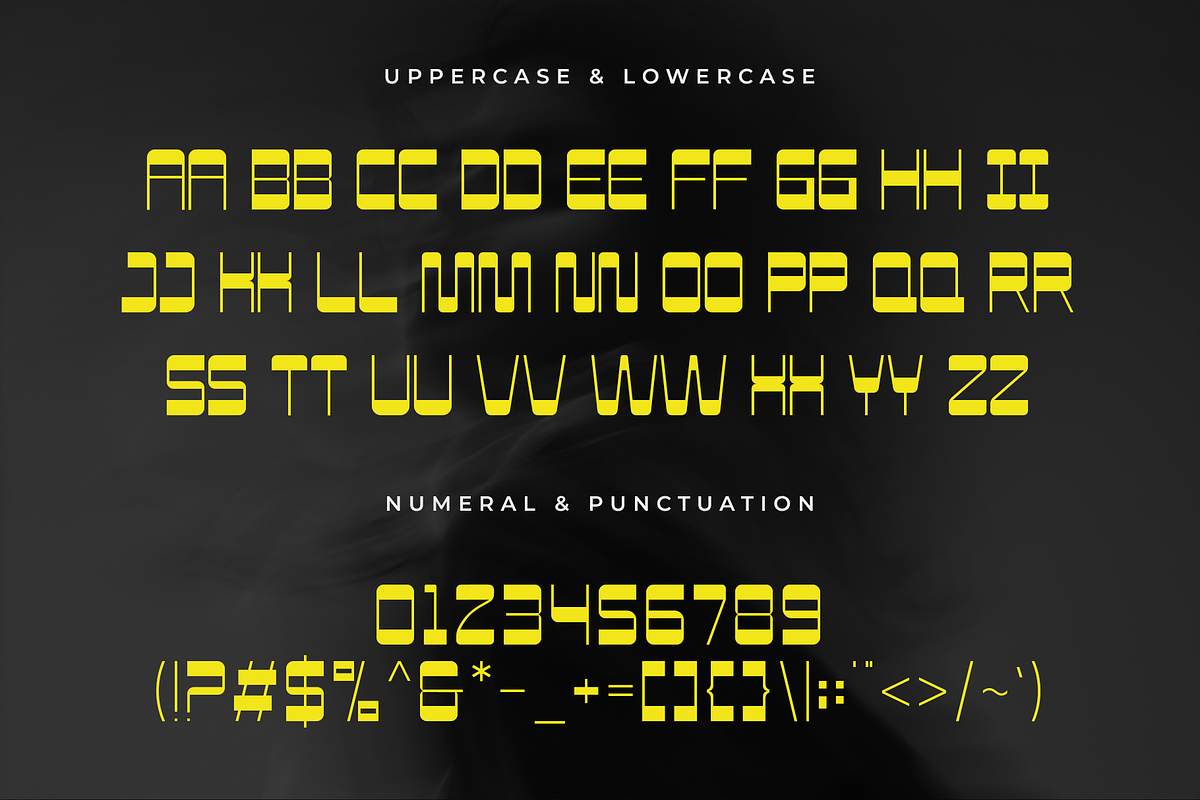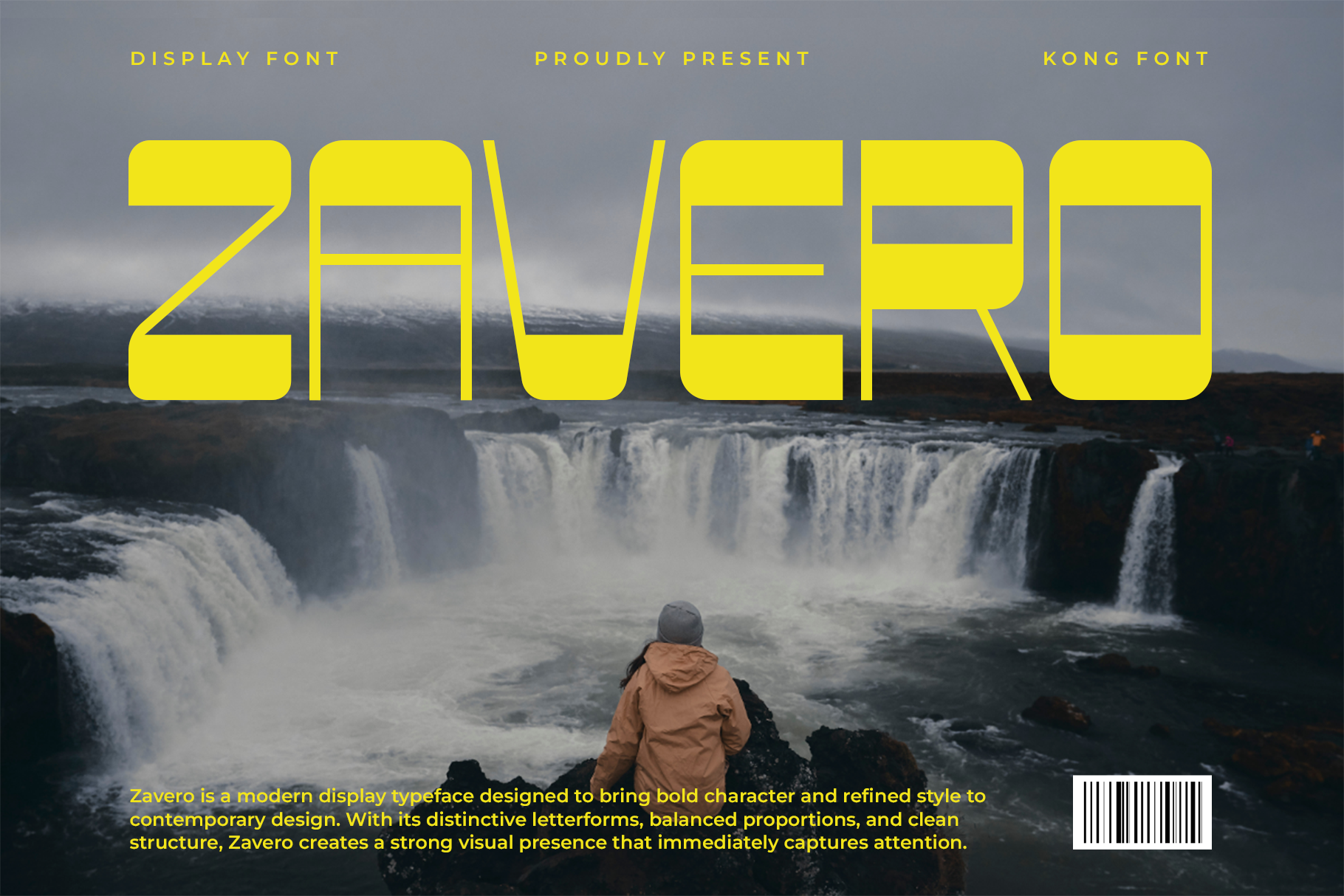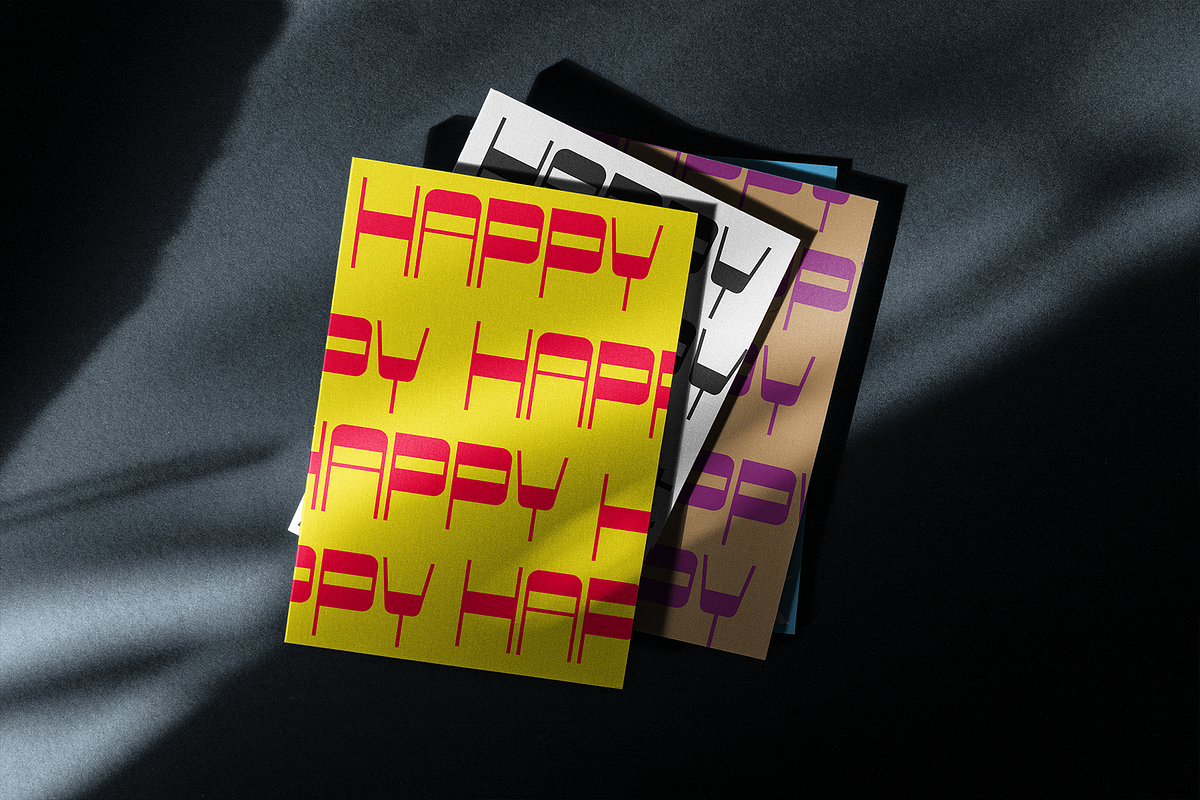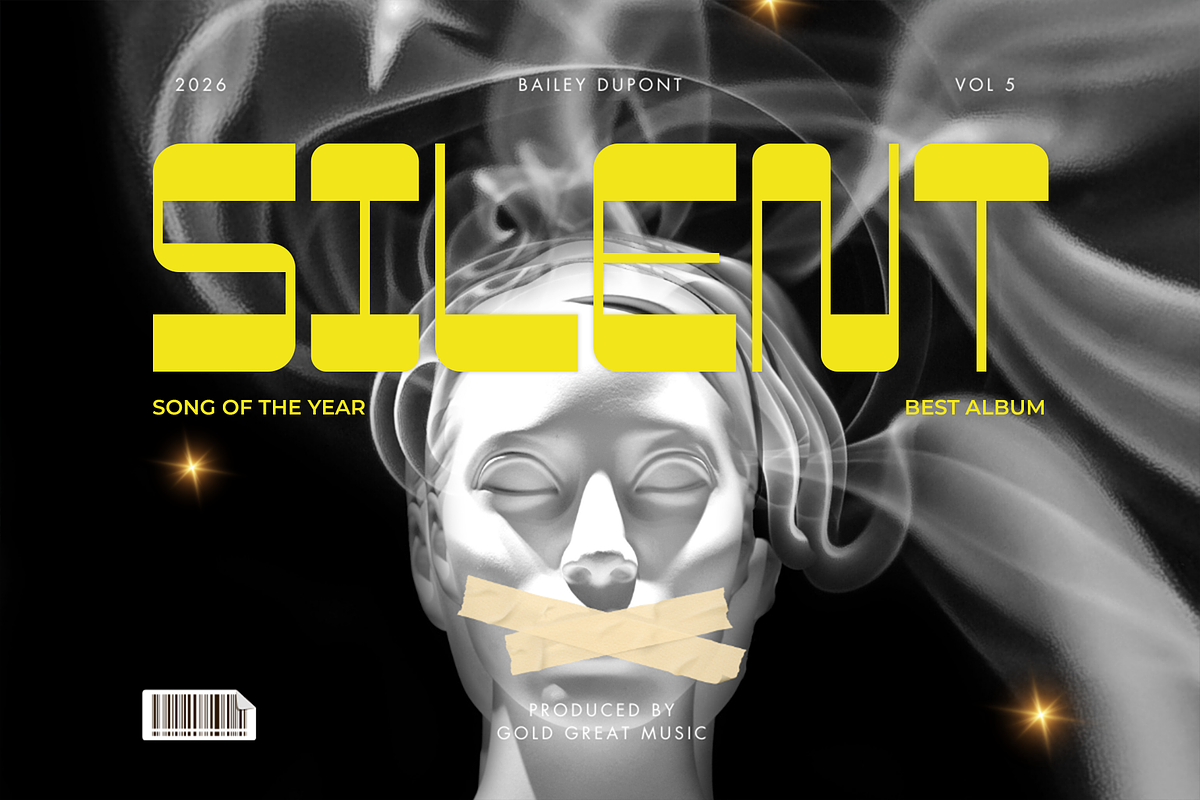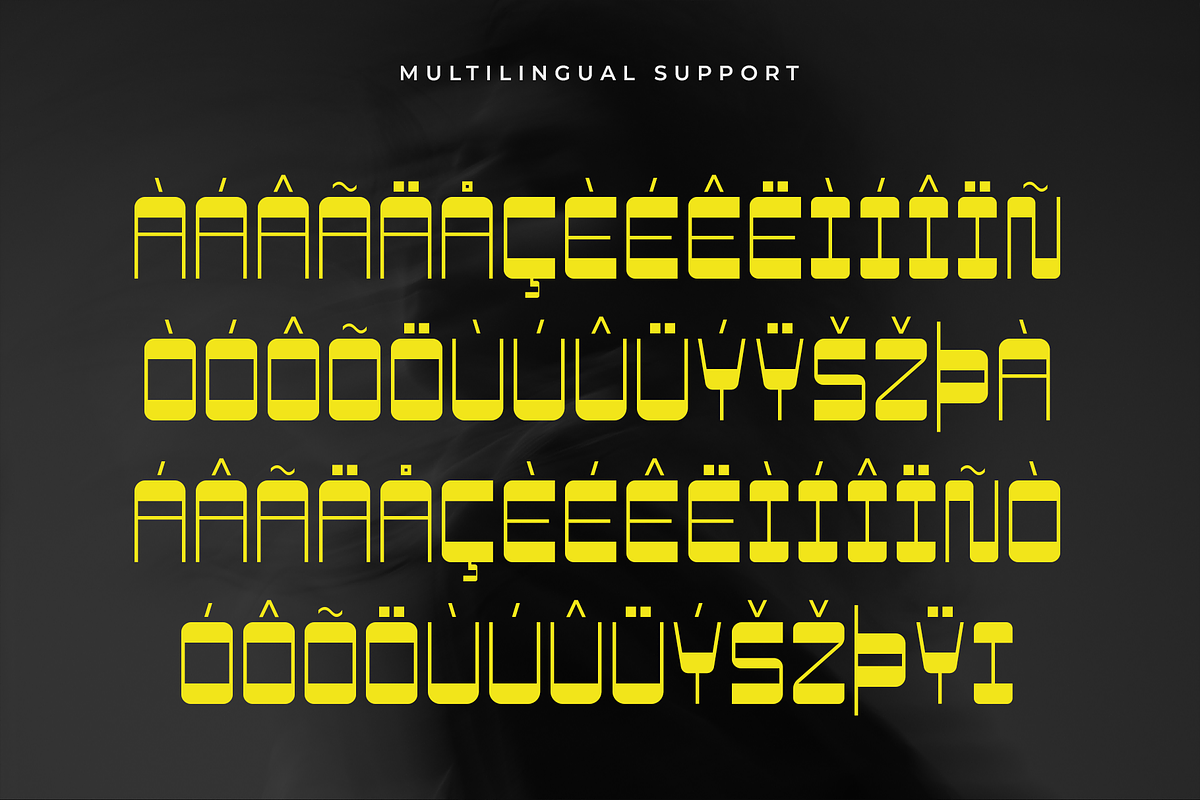
Zavero – Modern Display Font
Zavero is a modern display font crafted to create bold and striking visual impact. With its strong letterforms, clean structure, and contemporary styling, Zavero brings a confident and stylish presence to any design project.
Perfect for logos, posters, branding, packaging, advertising campaigns, social media graphics, and headline typography, Zavero is designed to shine in large sizes where bold personality and clarity matter most.